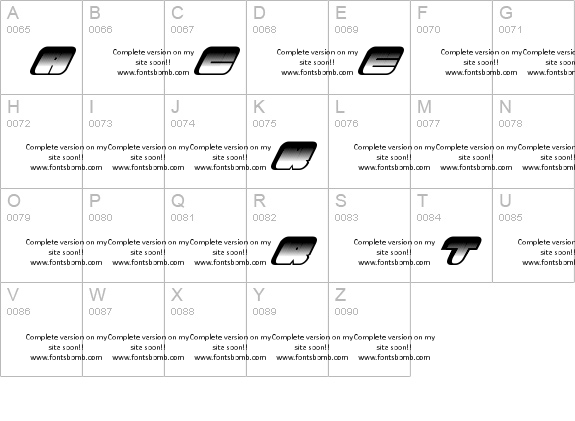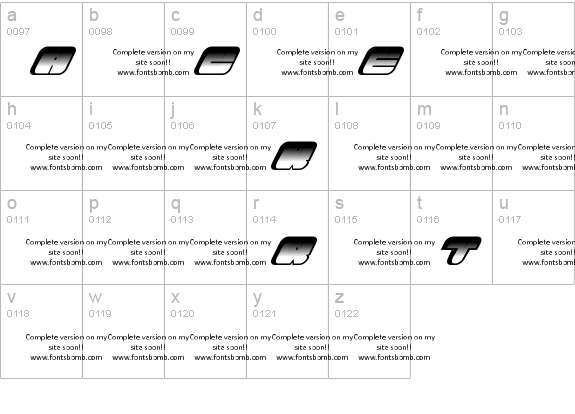
TRACKER (uncomplete_version) Font Details
Introducing TRACKER (uncomplete_version) font, a modern and stylish typeface that will add a touch of sophistication to your designs. This font is the perfect choice for any project that requires a bold and eye-catching look. With its sleek lines and unique character shapes, TRACKER (uncomplete_version) font is sure to make a statement. Whether you're designing a logo, creating a poster, or crafting a website, this font will give your work a professional and polished finish. One of the best features of TRACKER (uncomplete_version) font is that it is available for free. That's right, you can download this amazing font for absolutely no cost at FontsMarket.com. This means that you can add a high-quality typeface to your design arsenal without breaking the bank. Don't miss out on the opportunity to enhance your creative projects with the beauty and versatility of TRACKER (uncomplete_version) font. Download it now from FontsMarket.com and start creating stunning designs that will captivate your audience.